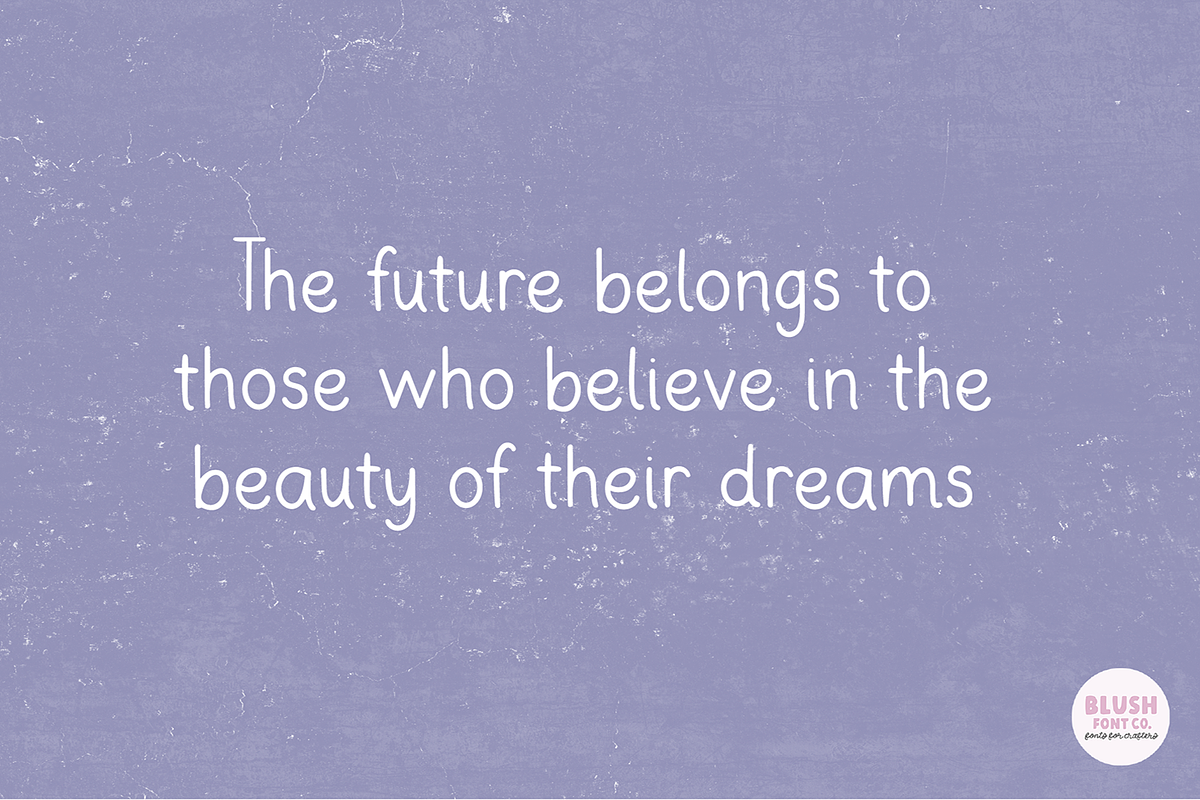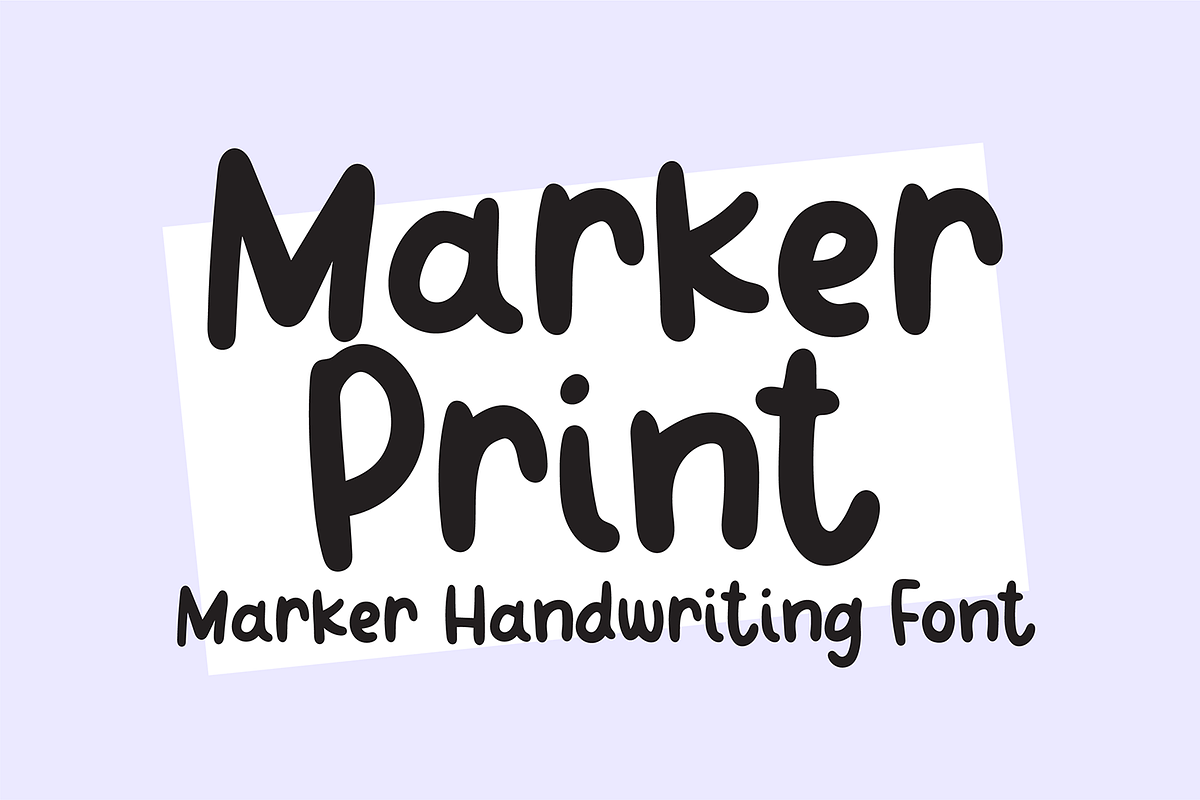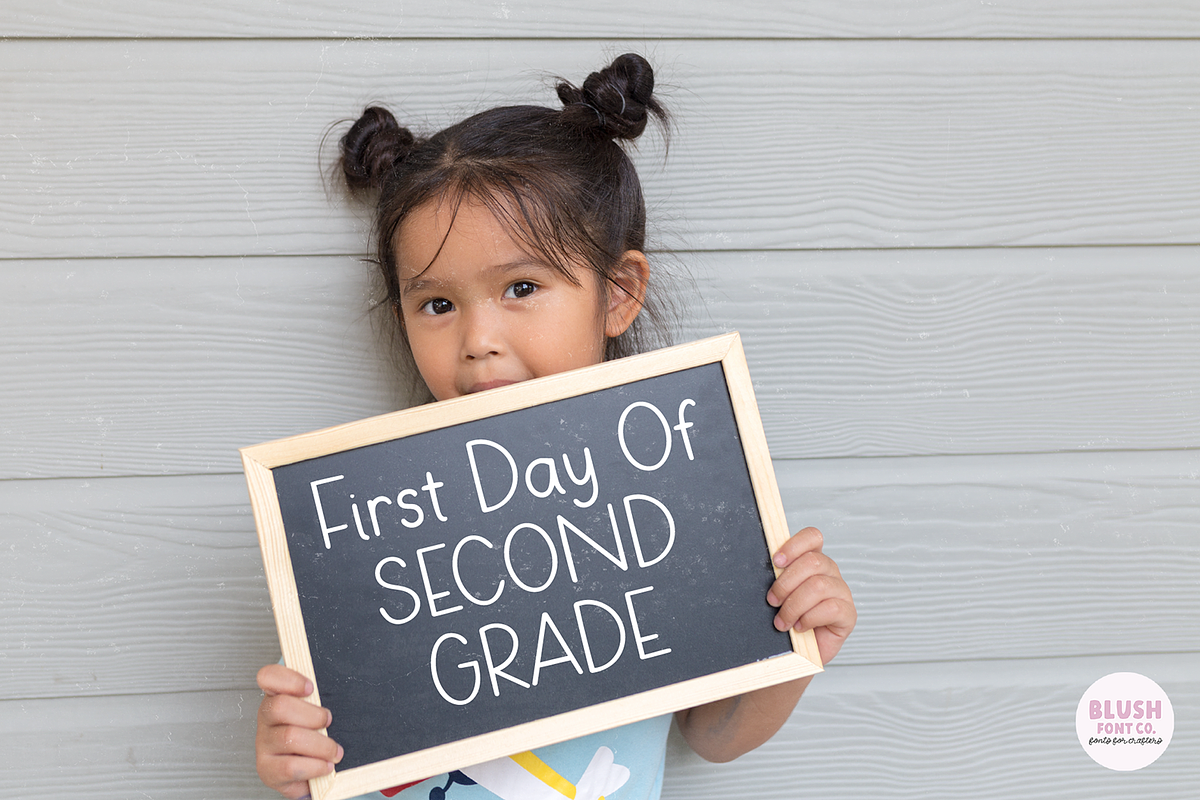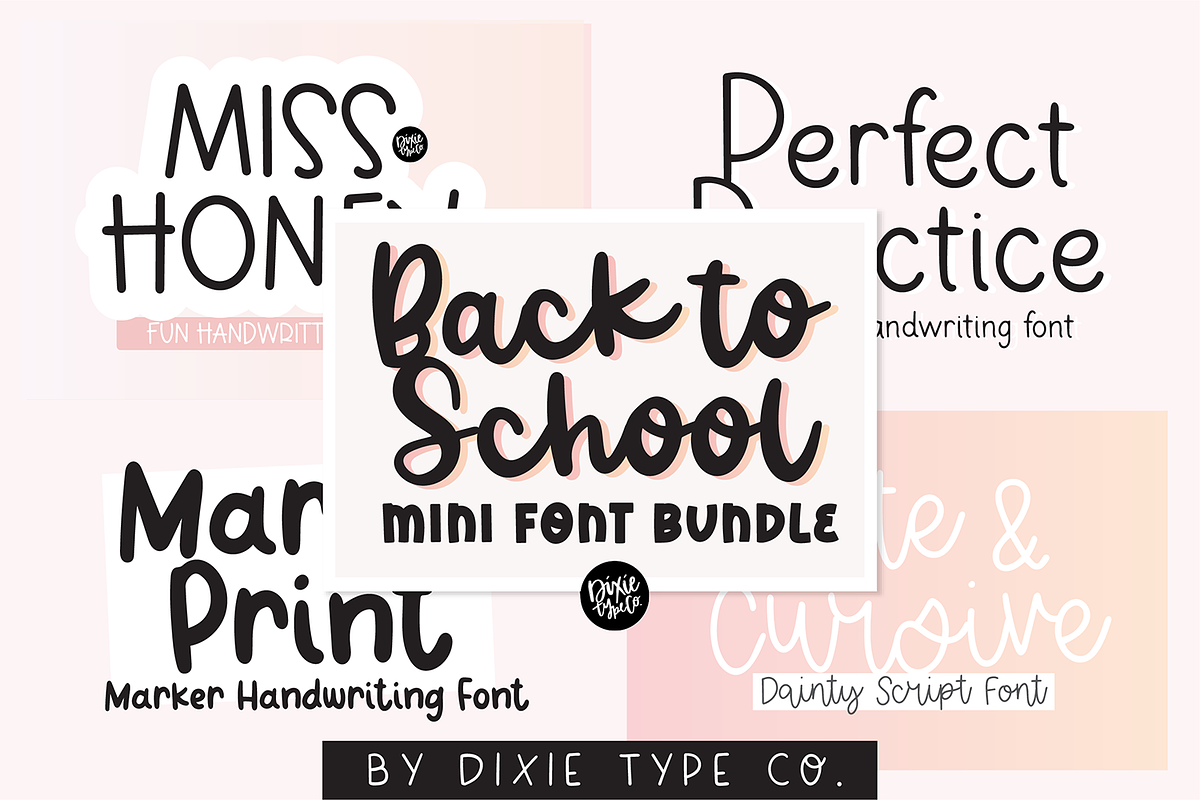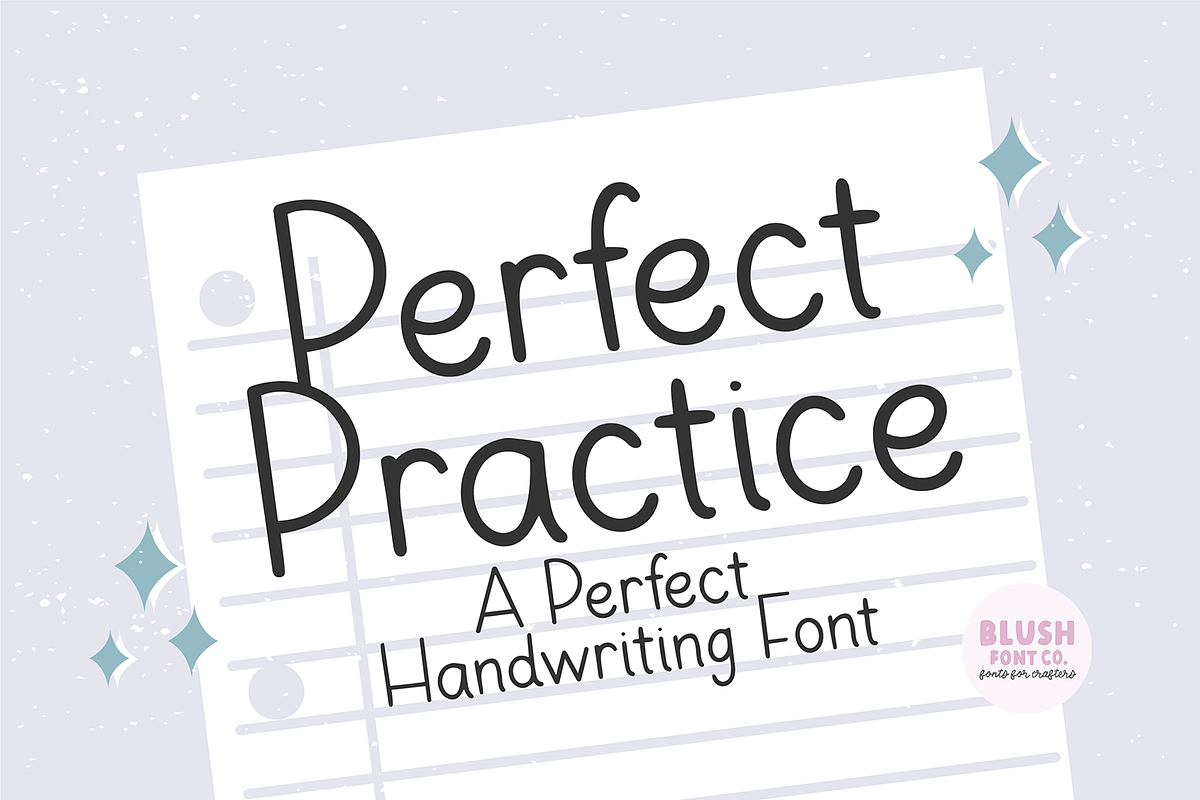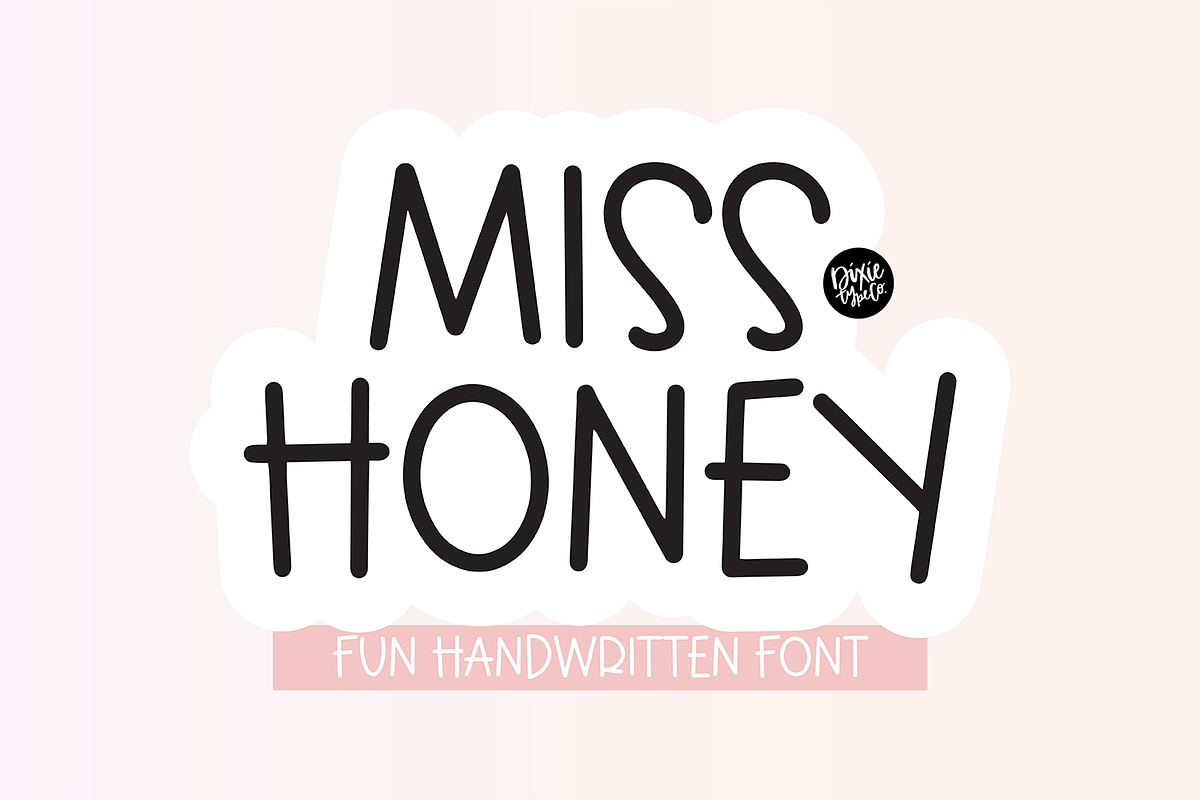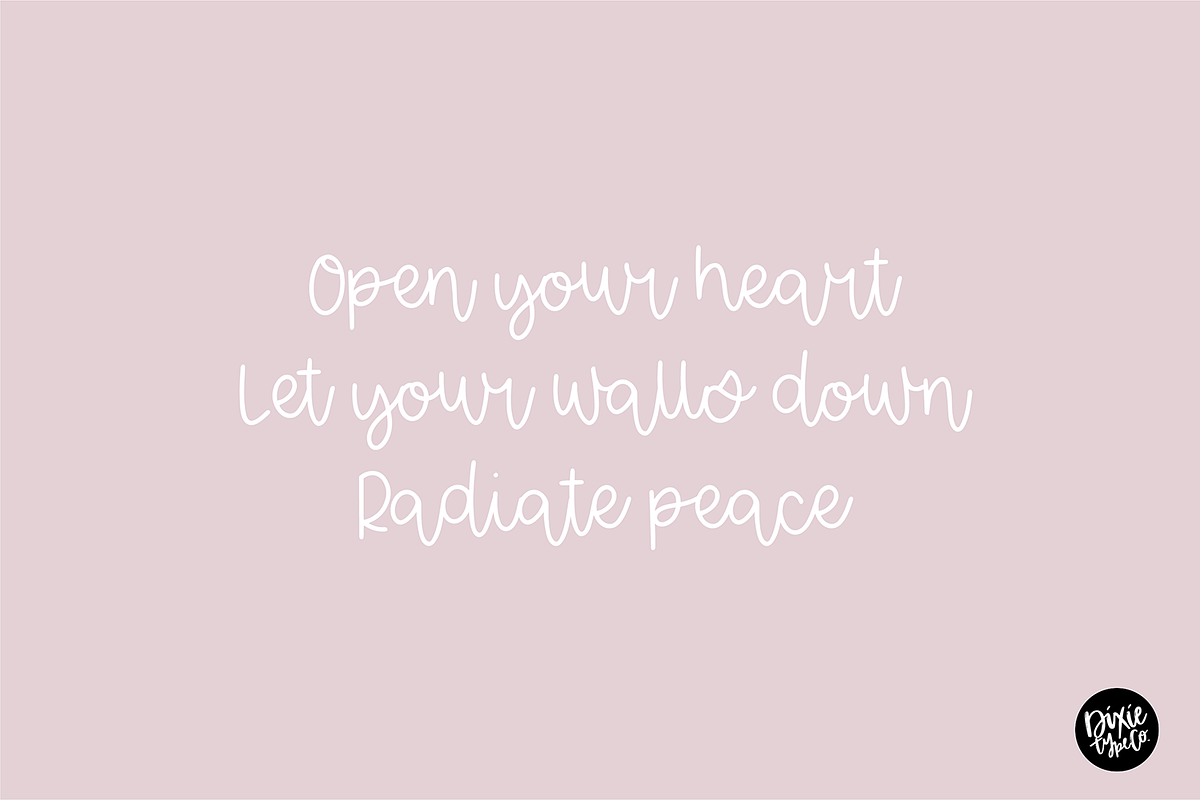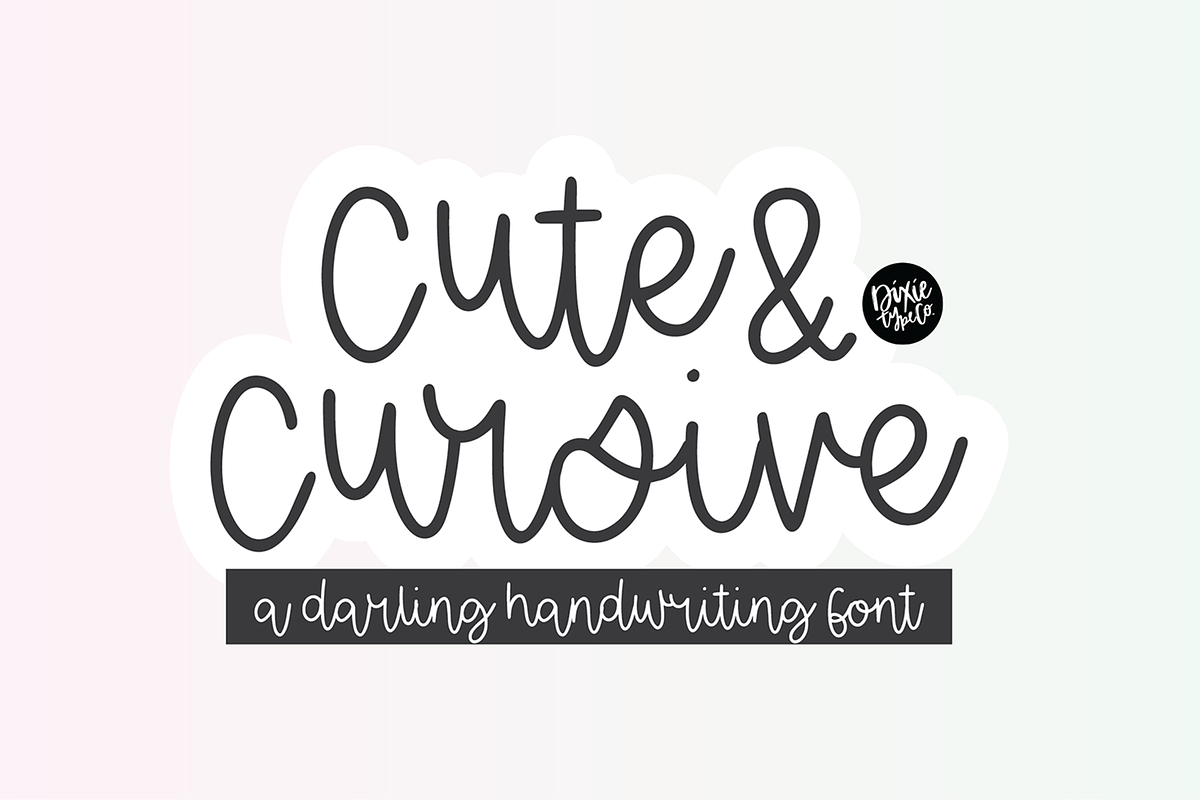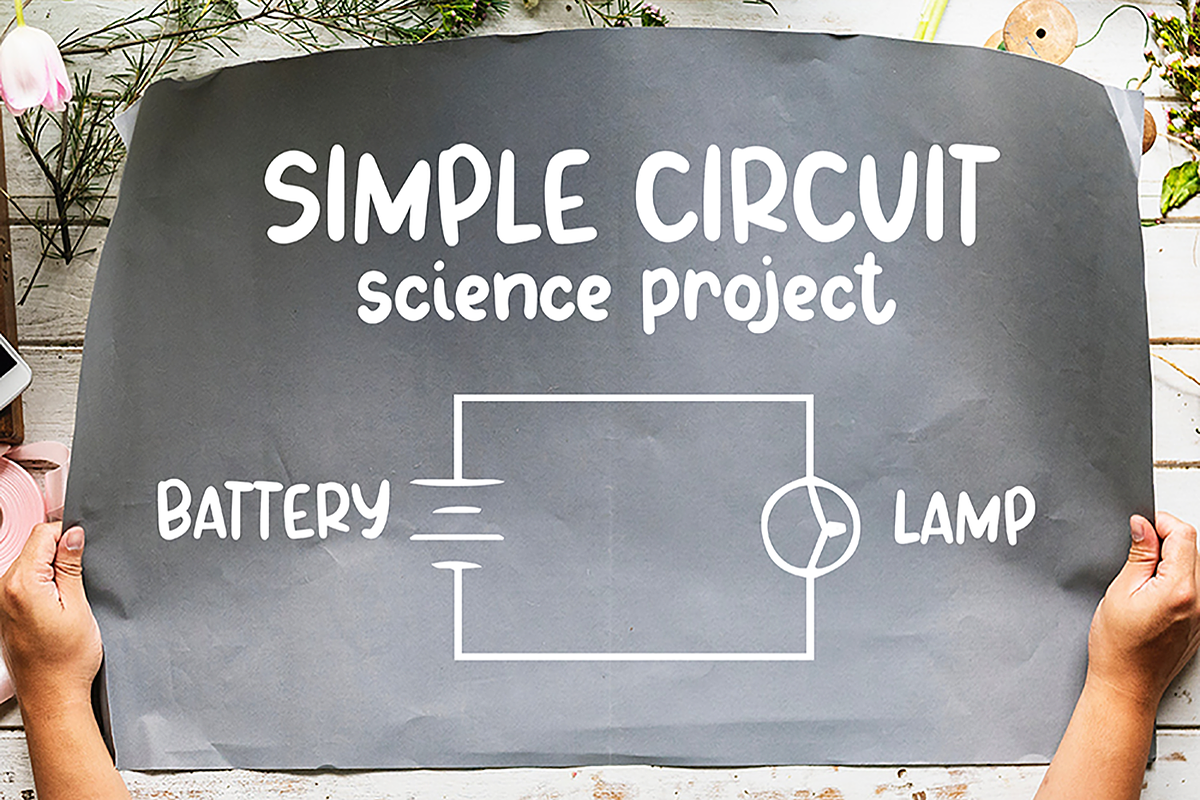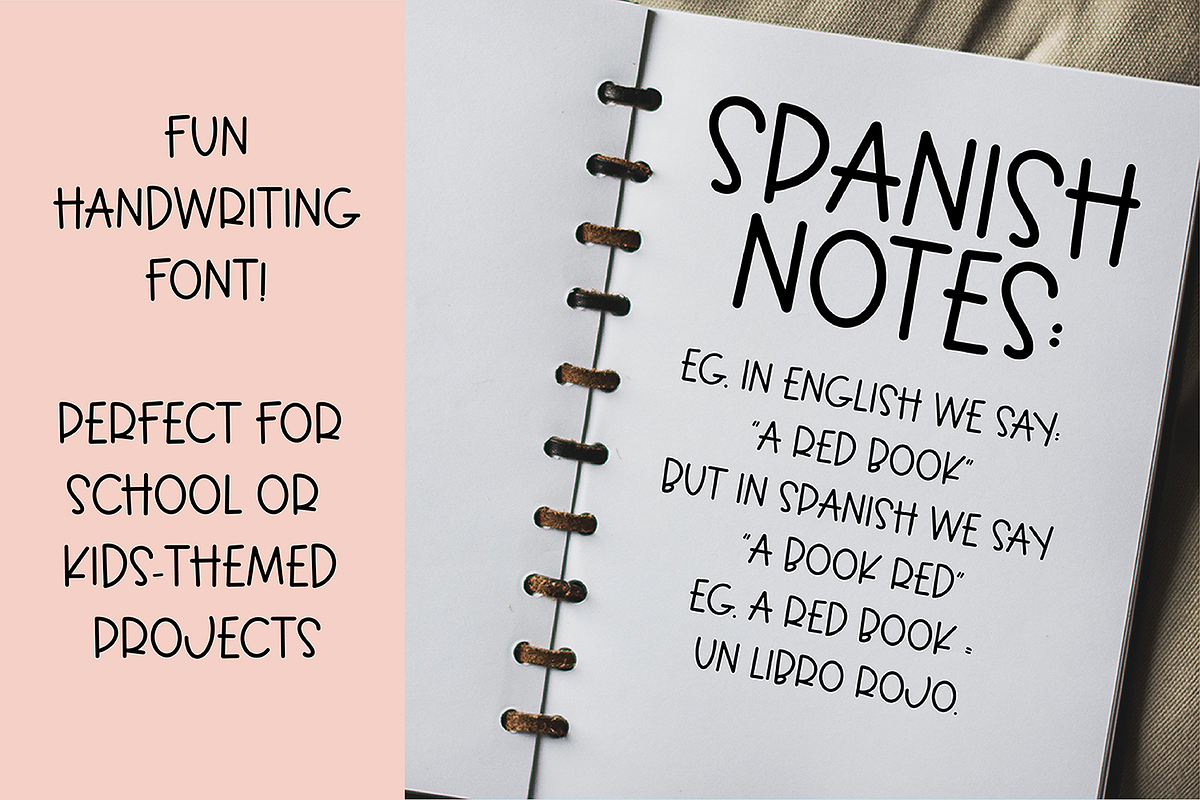
BACK TO SCHOOL Mini Font Bundle
These fonts were all hand-lettered with a brush and ink, or iPad Pro.
The fonts included are:
PERFECT PRACTICE MISS HONEY MARKER PRINT CUTE & CURSIVE